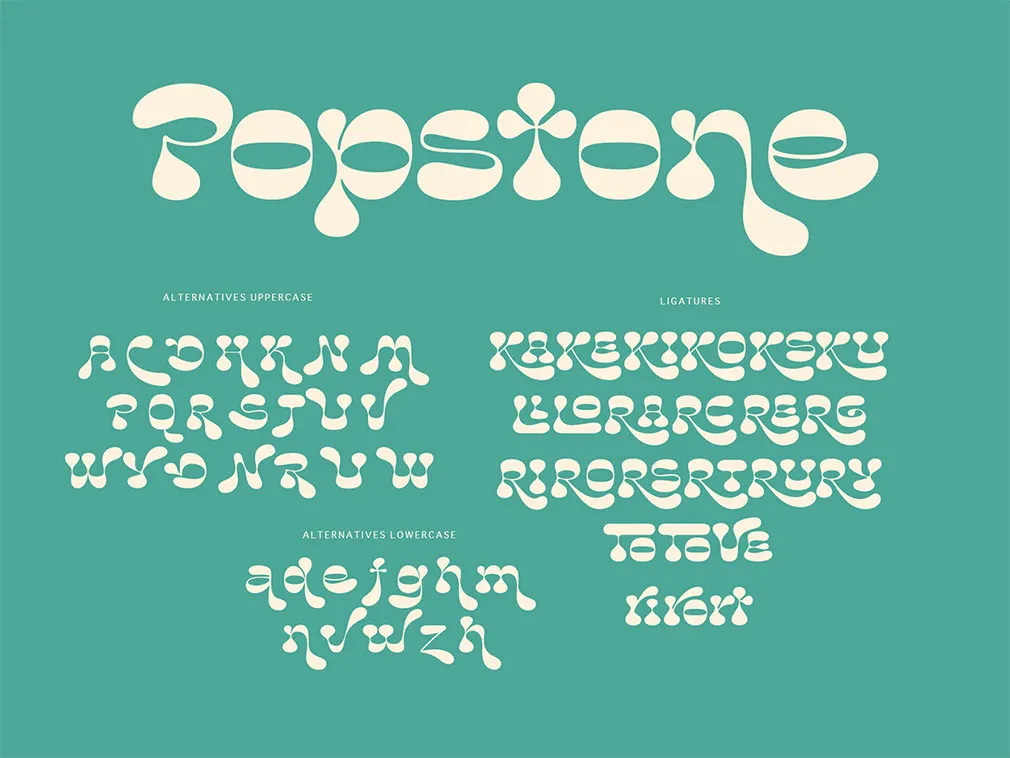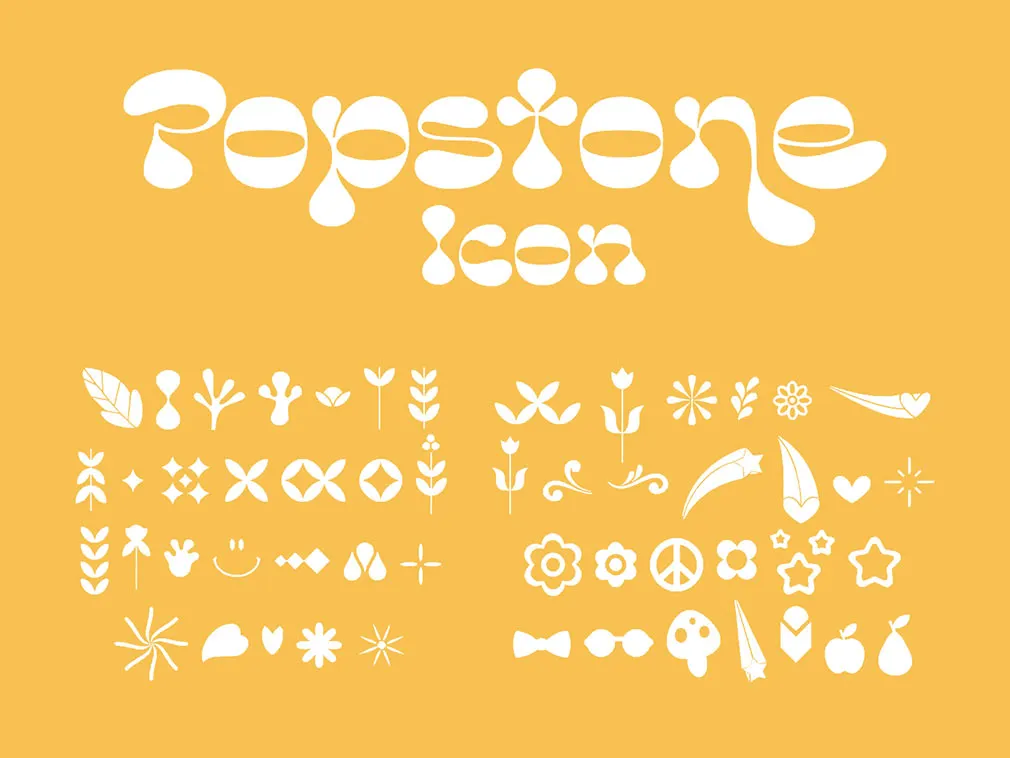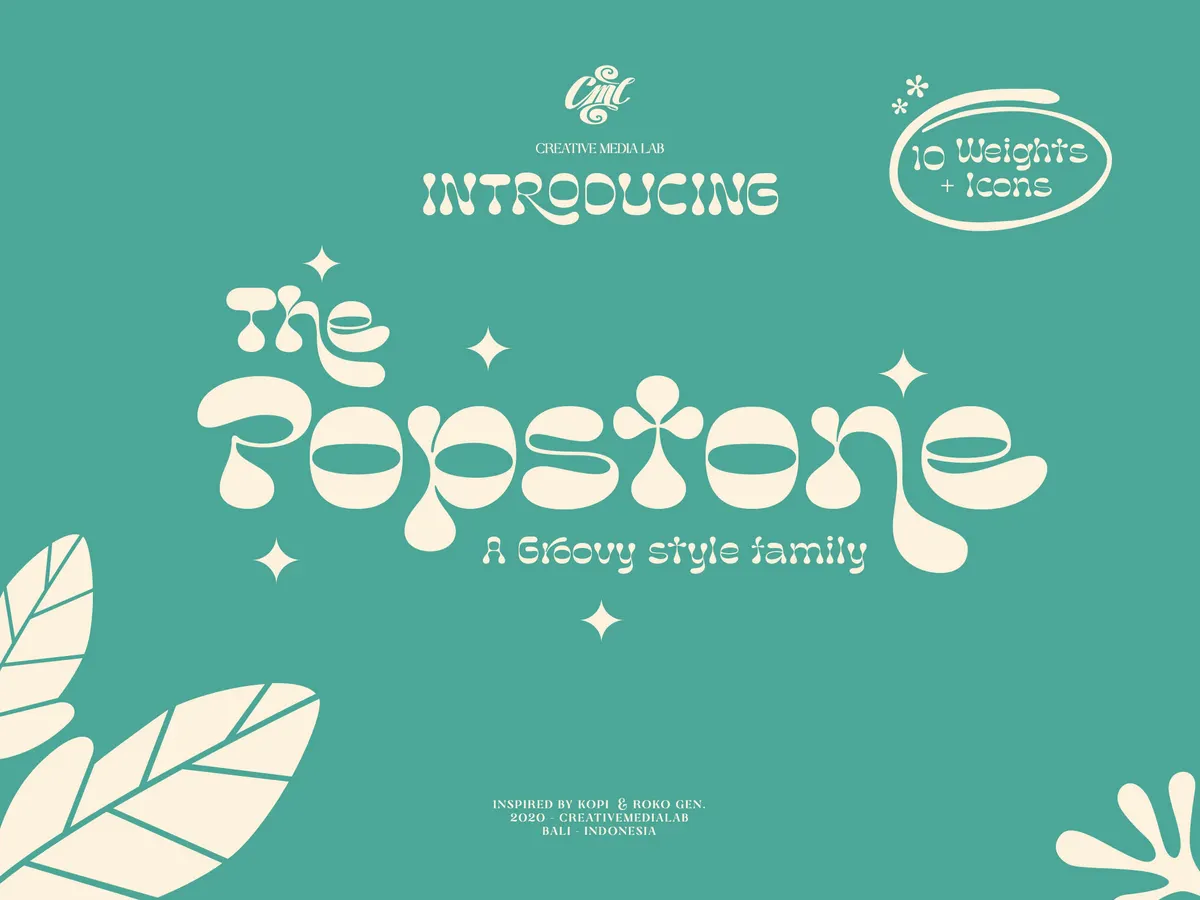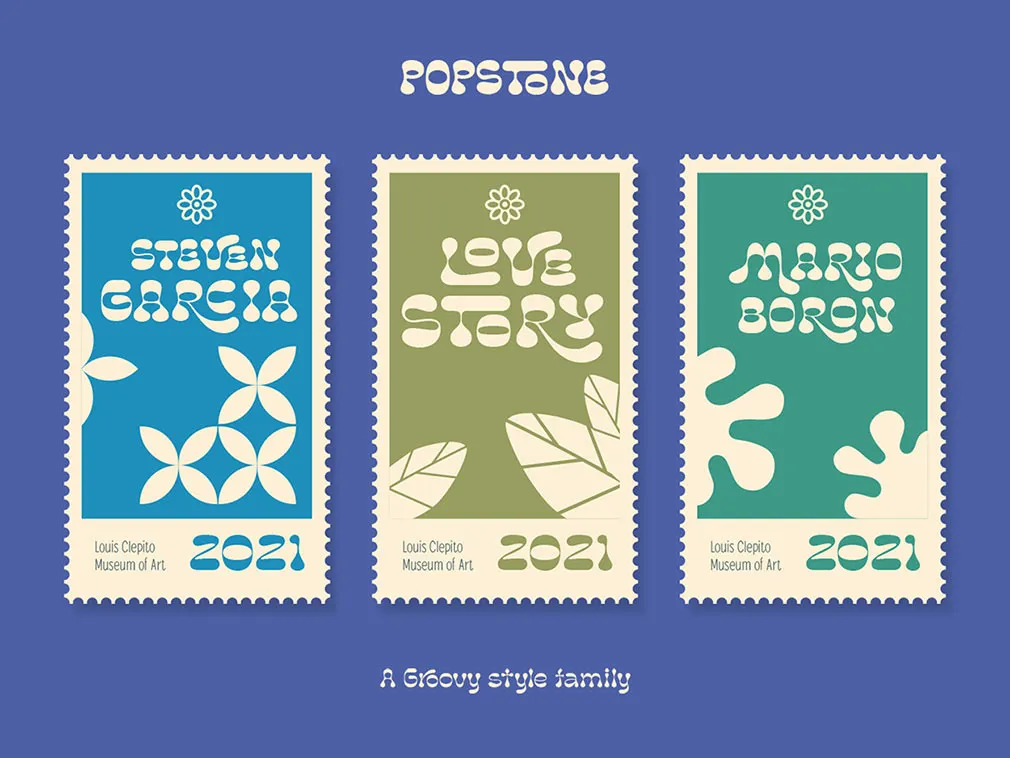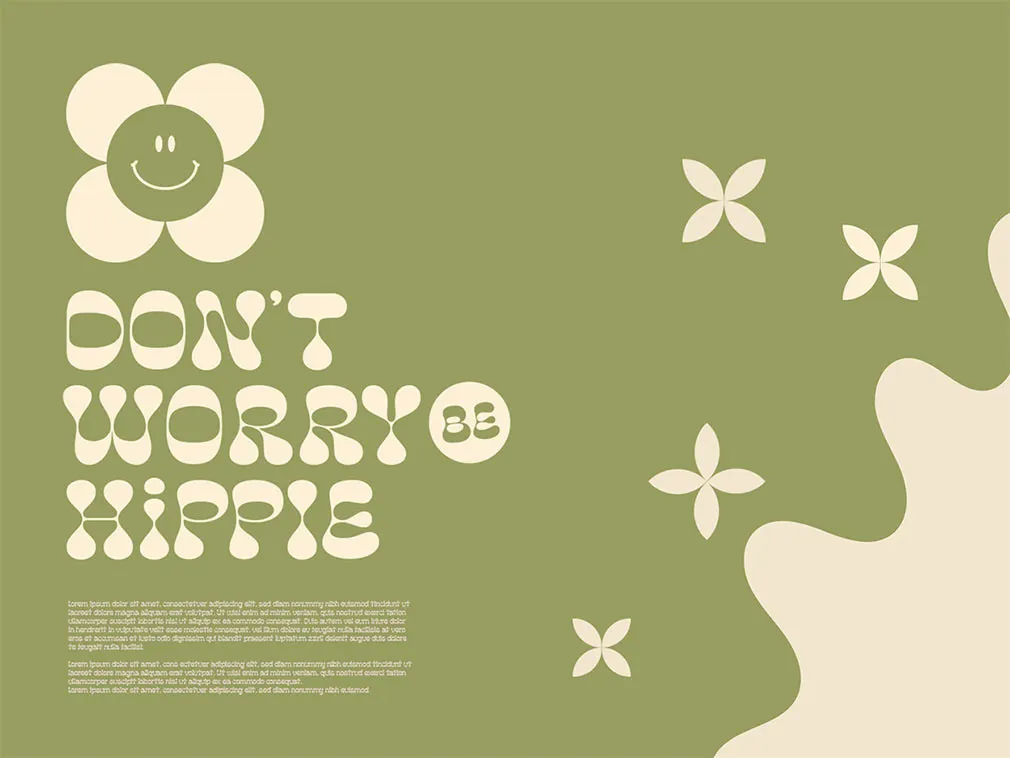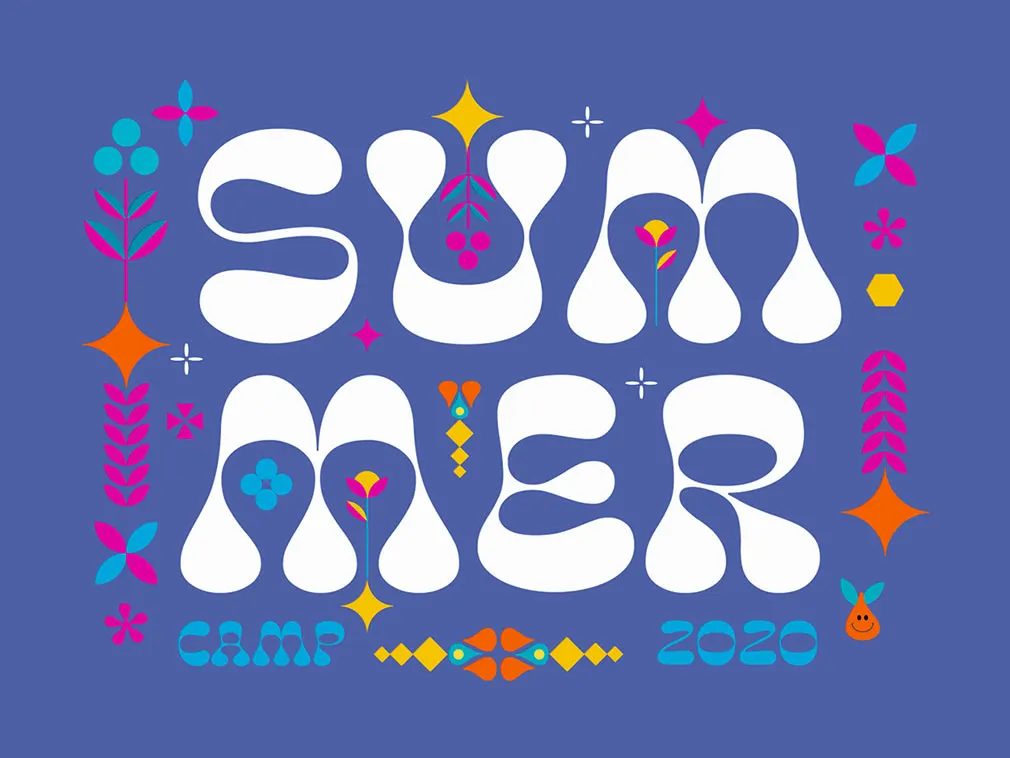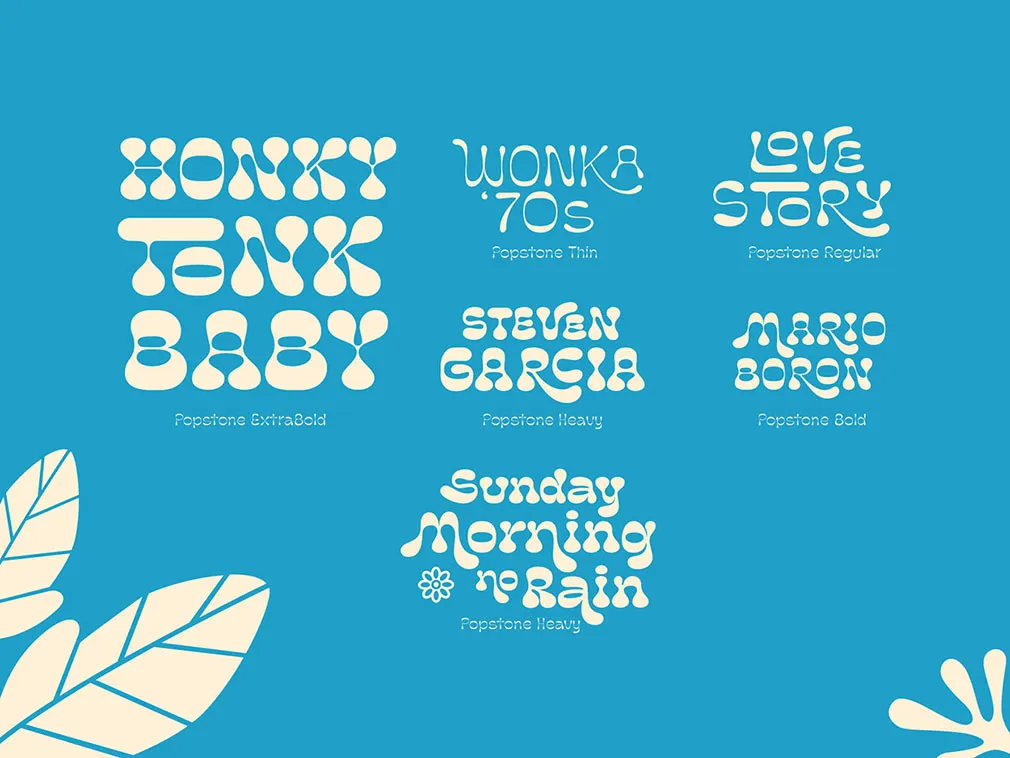
Popstone Display Font
The display font, making you think of good times only! How can it do that? Take a look at its chubby tails and lines and you'll get it. In order to see it in action, you must include it in your design!
Groovy style font becomes one of the most popular fonts these days, many designers use it to create a fun and happy theme design projects. Popstone is a unique font, looking bubbly and funky. It contains 10 weights from thin to black (including variable format), has alternatives and a lot of fun ligatures to play with. This is a versatile font family, which you can use for posters, logos, retro or vintage projects, DIY in the 80s style, and much more!